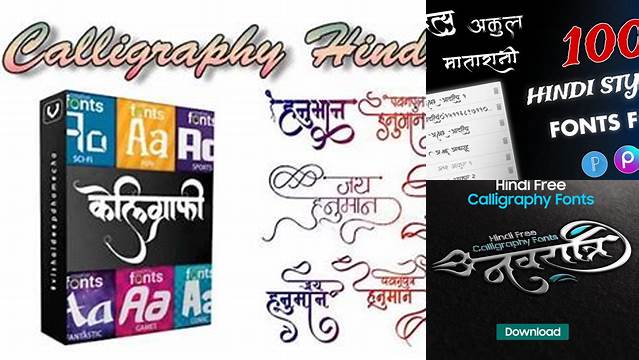
Hey guys! Are you looking to add some flair and elegance to your designs? Well, you've come to the right place! Today, we're diving deep into the world of calligraphy Hindi fonts, and the best part? You can download them for free! We'll explore why these fonts are so awesome, where you can find them, and how to use them to create stunning visuals. So, buckle up and let's get started!
Why Use Calligraphy Hindi Fonts?
First off, let's talk about why calligraphy Hindi fonts are such a game-changer. These fonts aren't just your run-of-the-mill text; they're a form of art. Think about it: the flowing strokes, the intricate details, the way each letter connects with the next – it's like poetry in visual form. Using these fonts can instantly elevate your projects, giving them a touch of sophistication and cultural richness. For those of you who love adding a personal touch, calligraphy Hindi fonts are a fantastic way to go. They bring a sense of tradition and heritage, which is super important if you’re working on projects that celebrate Indian culture or have a spiritual theme. Whether you’re designing wedding invitations, festive posters, or even a personal blog, these fonts can add that extra oomph you've been searching for. Imagine using a beautifully crafted font for a Diwali greeting or an elegant script for a wedding card – it just makes everything feel more special, right? Plus, let’s not forget the versatility. There's a huge variety of styles out there, from traditional Devanagari scripts to modern, fusion designs. This means you can find the perfect font to match the mood and tone of your project. Need something formal and refined? There’s a font for that. Want something playful and whimsical? You got it! The key takeaway here is that calligraphy Hindi fonts aren't just about looking pretty; they're about adding depth, meaning, and a personal touch to your work. So, if you’re ready to take your designs to the next level, these fonts are an absolute must-have in your toolkit. Trust me, once you start using them, you'll wonder how you ever managed without them!
Where to Find Free Calligraphy Hindi Fonts
Okay, so now that we've established how amazing calligraphy Hindi fonts are, let's get to the good stuff: where to actually find them for free! The internet is a treasure trove of resources, but it can also be a bit overwhelming, right? Don't worry, I've got your back. I'm going to share some of my favorite spots for downloading these fonts without spending a dime. First up, let's talk about font websites. There are tons of sites out there that offer free fonts, but you need to be a little careful. Not all of them are created equal, and some might have sketchy download processes or even hidden malware. That's why it's important to stick to reputable sites. Some of the names you'll often hear in the design community include Google Fonts, Font Squirrel, and DaFont. Google Fonts is a fantastic resource because it offers a wide range of open-source fonts that are completely free to use, even for commercial projects. They have a decent selection of calligraphy Hindi fonts, and the best part is that the fonts are super easy to embed on websites too. Font Squirrel is another great option. They pride themselves on offering high-quality, free fonts that are also commercially safe. Their selection might not be as vast as Google Fonts, but what they do offer is top-notch. And then there's DaFont, which is a massive library of fonts uploaded by designers from all over the world. You can find some real gems here, but you'll want to double-check the licensing terms for each font, as they can vary. Another tip is to explore design communities and forums. Sites like Behance and Dribbble often have designers who generously share their creations for free. You might stumble upon some unique and handcrafted calligraphy Hindi fonts that you won't find anywhere else. Just be sure to give credit to the designer if you use their work – it's the right thing to do! Finally, keep an eye out for special promotions and freebies. Sometimes, font foundries will offer free font packs as a way to promote their work. Signing up for newsletters from these foundries can be a great way to stay in the loop. So, there you have it – a bunch of fantastic resources for finding free calligraphy Hindi fonts. Happy downloading, guys!
How to Use Calligraphy Hindi Fonts
Alright, you've downloaded some awesome calligraphy Hindi fonts – now what? It’s time to put them to work and make your designs shine! But let's be real, using these fonts effectively is an art in itself. It's not just about slapping a fancy font on your text; it's about understanding how to use them in a way that enhances your message and visual appeal. So, let's dive into some tips and tricks to help you master the art of using calligraphy Hindi fonts. First things first, context is key. Think about the project you're working on and the message you want to convey. Is it a formal invitation? A festive greeting? A spiritual quote? The tone of your project should guide your font choice. A delicate, flowing script might be perfect for a wedding invitation, but it might feel out of place on a bold, modern poster. Always consider the mood and emotion you want to evoke. Another crucial aspect is readability. Calligraphy Hindi fonts are beautiful, but some can be quite intricate and difficult to read, especially in smaller sizes. If your text is hard to decipher, your message will get lost. So, always prioritize clarity. Use these fonts for headlines, titles, or short phrases where the impact is more important than the quantity of text. For longer paragraphs or body text, stick to simpler, more legible fonts. Don’t be afraid to experiment with font pairings either. Pairing a calligraphy Hindi font with a clean, sans-serif font can create a striking contrast that's both elegant and modern. The key is to find fonts that complement each other without clashing. Think of it like putting together an outfit – you want pieces that work well together and create a cohesive look. And hey, don't forget about spacing and kerning! Calligraphy fonts often have unique letterforms that require special attention to spacing. Adjusting the kerning (the space between individual letters) and the leading (the space between lines) can make a huge difference in readability and visual appeal. A little tweaking can go a long way in making your text look polished and professional. Lastly, remember the power of color. The color of your font can dramatically impact the overall look and feel of your design. Gold or silver calligraphy on a dark background can create a luxurious, traditional feel, while bright, vibrant colors can add a playful, modern touch. So, there you have it – a bunch of tips to help you make the most of your calligraphy Hindi fonts. Now go out there and create some magic!
Best Projects for Calligraphy Hindi Fonts
Okay, guys, let’s get into the nitty-gritty of where calligraphy Hindi fonts truly shine. You've got these beautiful fonts, you know how to use them, but what kind of projects are perfect for them? Well, the possibilities are pretty much endless, but I'm going to highlight some of the best applications where these fonts can really make a difference. First off, let's talk about wedding invitations and stationery. Calligraphy Hindi fonts add an instant touch of elegance and tradition to any wedding-related design. Think about it: a beautifully scripted invitation sets the tone for the entire event. Using a flowing, graceful font for the names of the bride and groom, the date, and the venue can make the invitation feel extra special and memorable. You can extend this to other wedding stationery too, like save-the-dates, thank-you cards, and even the wedding programs. It’s all about creating a cohesive and sophisticated look. Next up, we have festive greetings and cards. India is a land of festivals, and what better way to celebrate than with beautifully designed greetings? Whether it's Diwali, Holi, or any other festival, calligraphy Hindi fonts can add a touch of cultural richness and warmth to your messages. Imagine sending a Diwali greeting with a vibrant, ornate font – it's sure to bring a smile to the recipient's face. Plus, these fonts are perfect for creating eye-catching posters and banners for festive events. Then there are spiritual and religious texts. Calligraphy has a long history in religious contexts, and using calligraphy Hindi fonts for spiritual quotes, verses, or mantras can be incredibly powerful. The elegant script adds a sense of reverence and solemnity, making the text feel even more meaningful. This is perfect for creating artwork for temples, ashrams, or even personal spaces dedicated to meditation and prayer. Another fantastic application is branding and logo design. If you're working with a brand that wants to convey a sense of tradition, heritage, or luxury, a calligraphy Hindi font can be a great choice. It can help the brand stand out and create a unique identity. However, it's important to use these fonts judiciously in branding. Make sure the font aligns with the brand's overall personality and target audience. Lastly, don't forget about personal projects! Whether you're designing a personal blog, creating social media graphics, or just making some pretty wall art, calligraphy Hindi fonts can add a personal touch and make your creations feel extra special. So, there you have it – some of the best projects for calligraphy Hindi fonts. Now go forth and create some stunning designs!
So, there you have it, guys! We’ve explored the wonderful world of calligraphy Hindi fonts, from why they're so awesome to where you can find them for free and how to use them effectively. Hopefully, you're feeling inspired and ready to start incorporating these beautiful fonts into your projects. Remember, these fonts are more than just text; they're a form of art that can add a touch of elegance, tradition, and cultural richness to your designs. Whether you're working on wedding invitations, festive greetings, branding, or personal projects, calligraphy Hindi fonts can help you create visuals that truly stand out. The key is to choose the right font for the context, prioritize readability, and don't be afraid to experiment with pairings and colors. And, of course, always respect the licensing terms when using free fonts. With a little creativity and attention to detail, you can create some stunning designs that showcase the beauty of the Hindi script. So go ahead, download some fonts, and start creating! And don't forget to share your creations with the world – I'd love to see what you come up with. Happy designing, guys! And remember, the world of design is constantly evolving, so keep learning, keep experimenting, and most importantly, keep having fun!